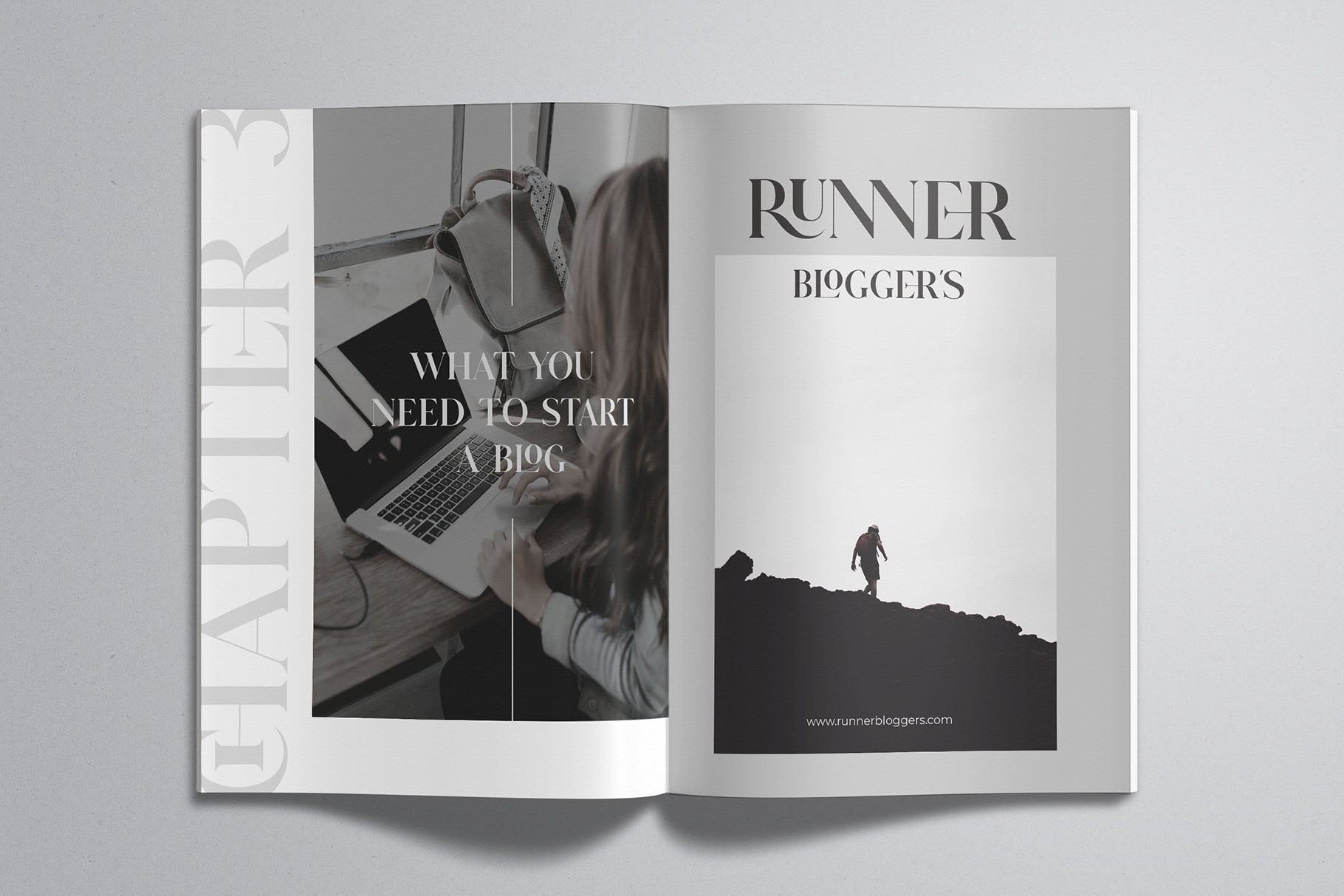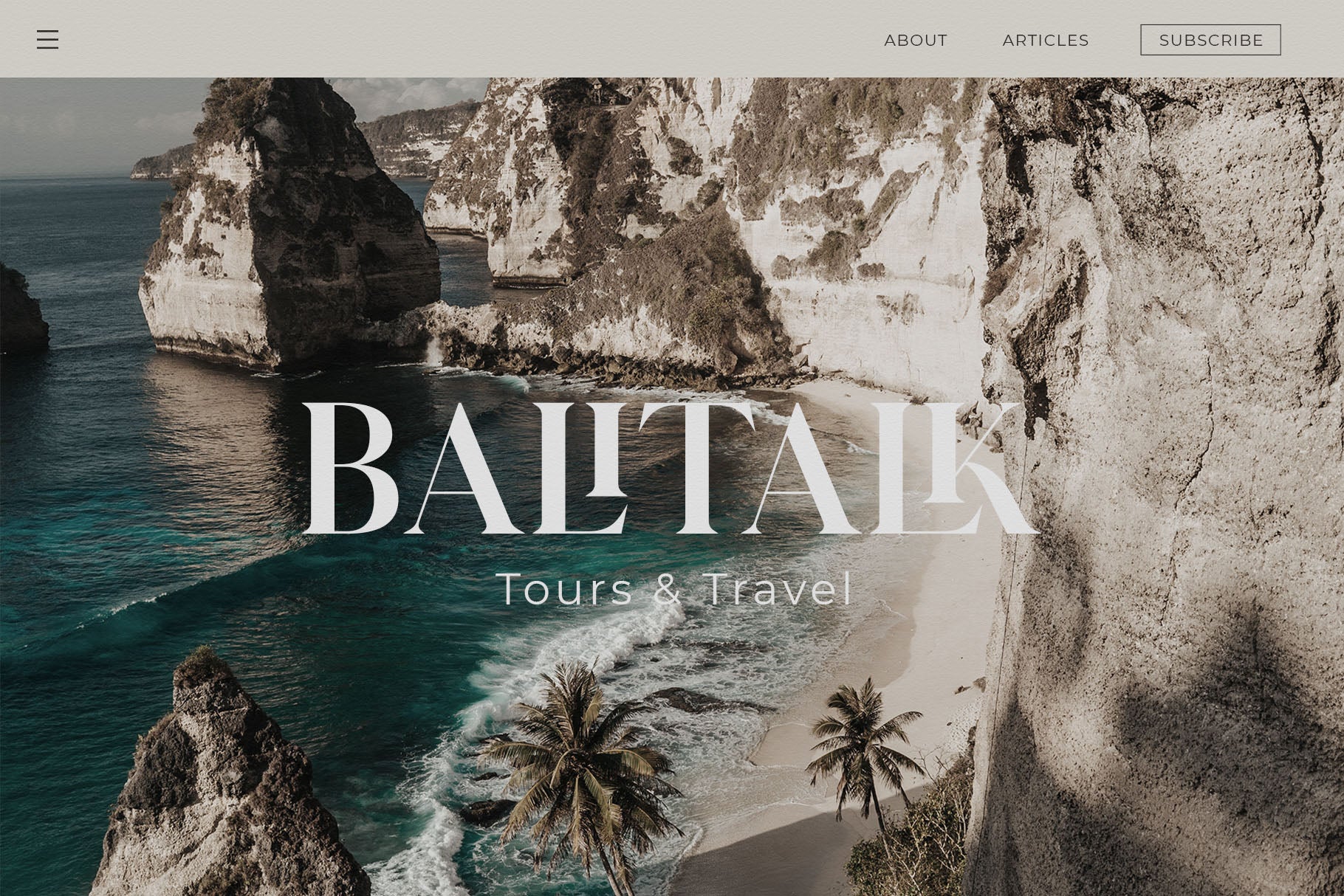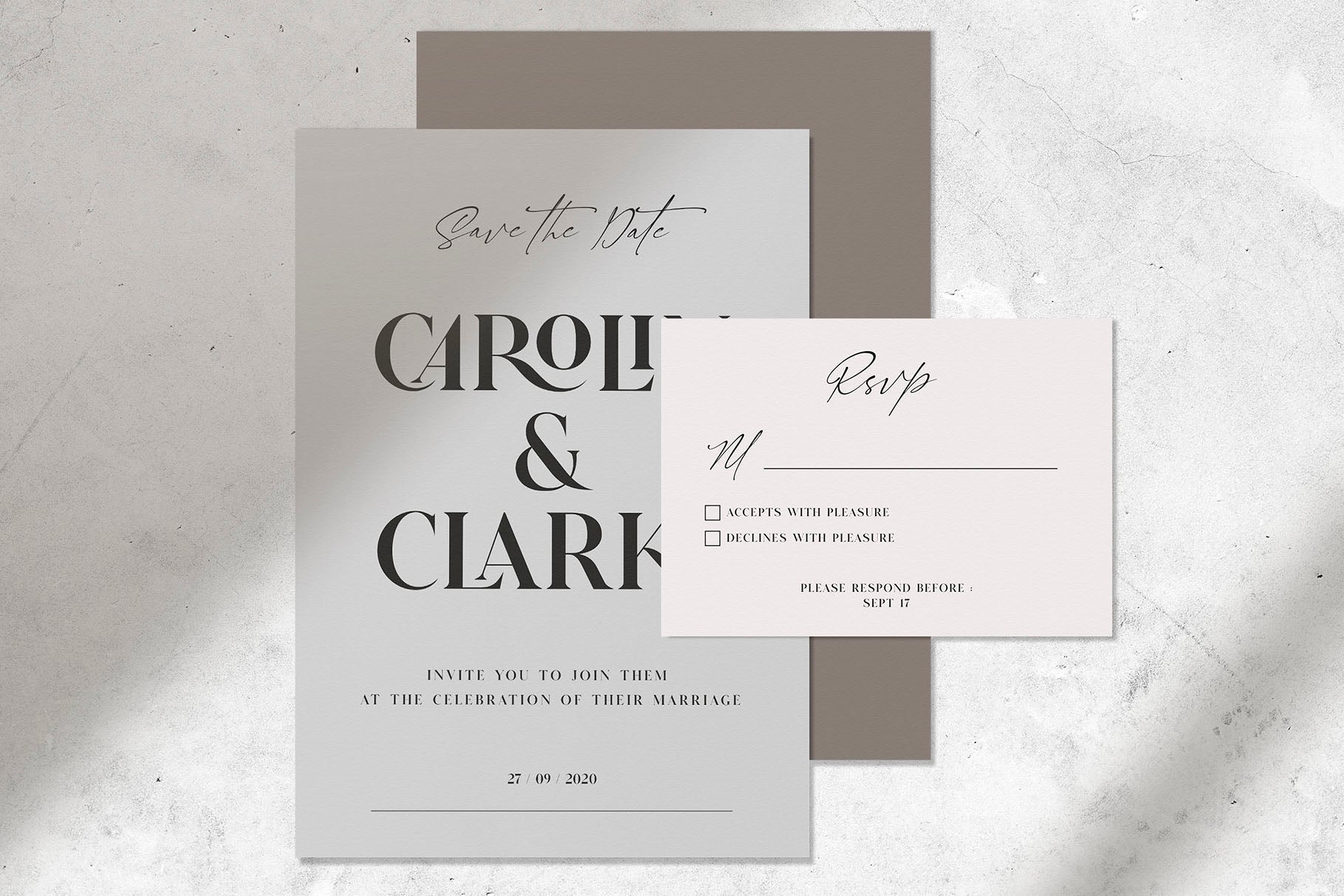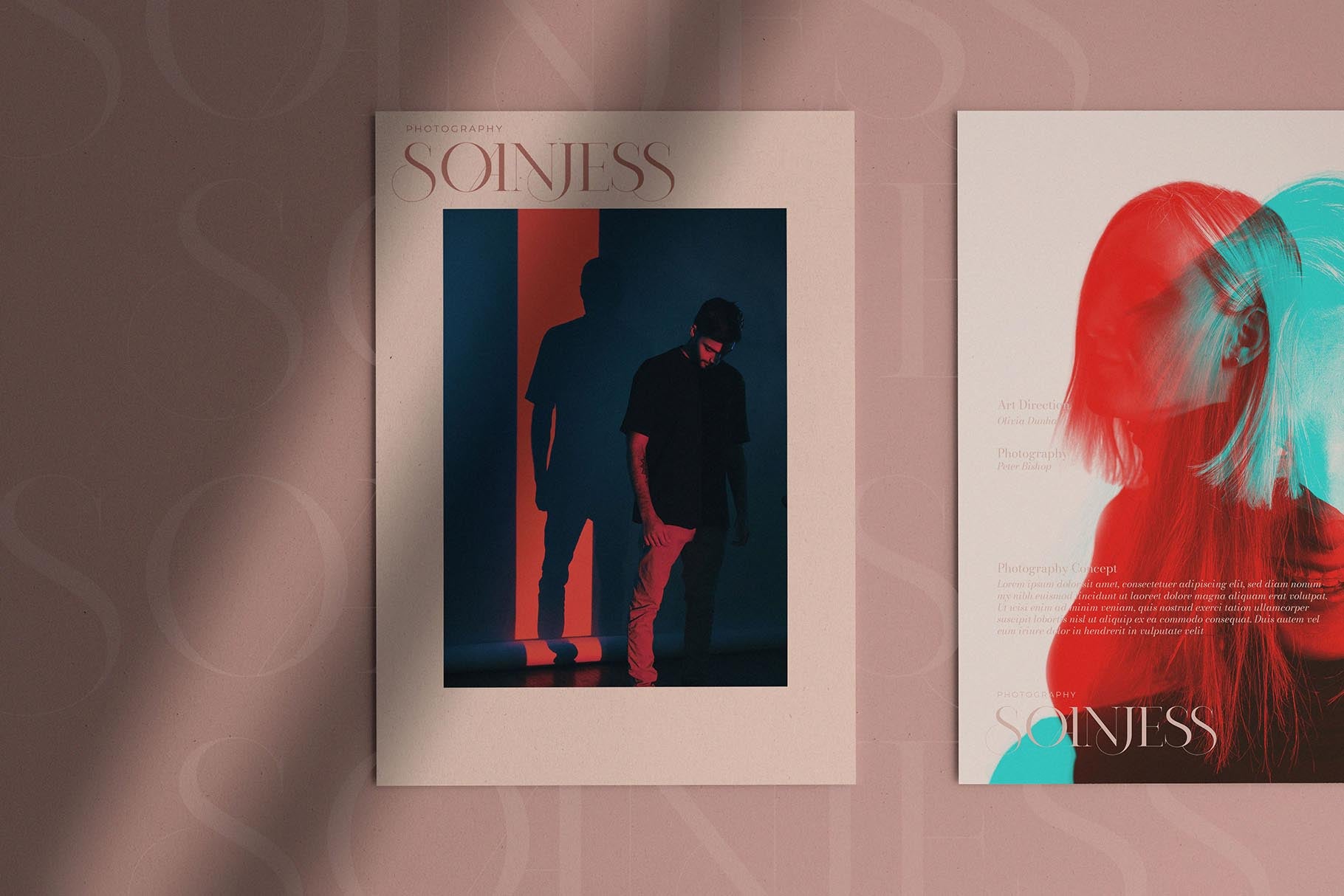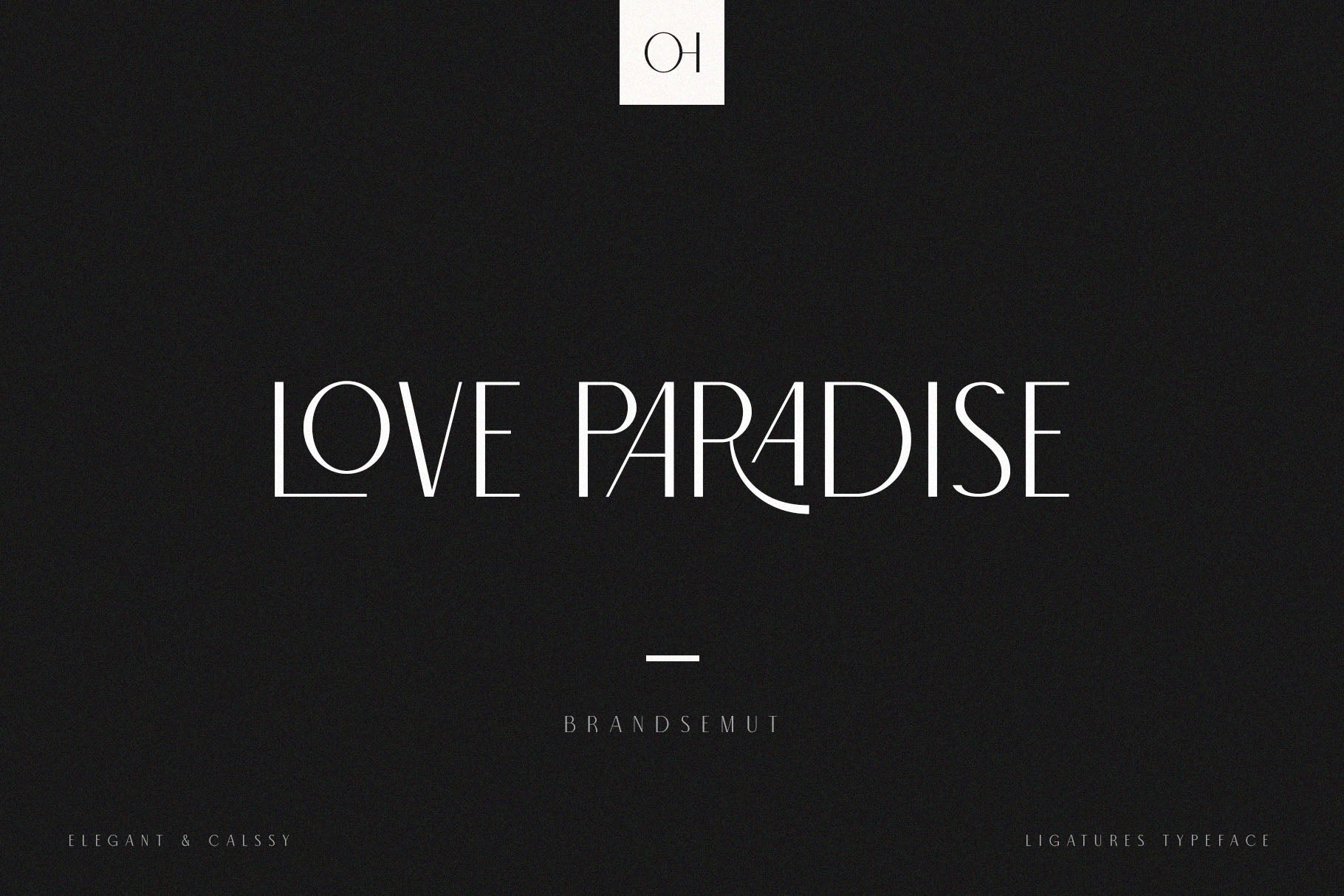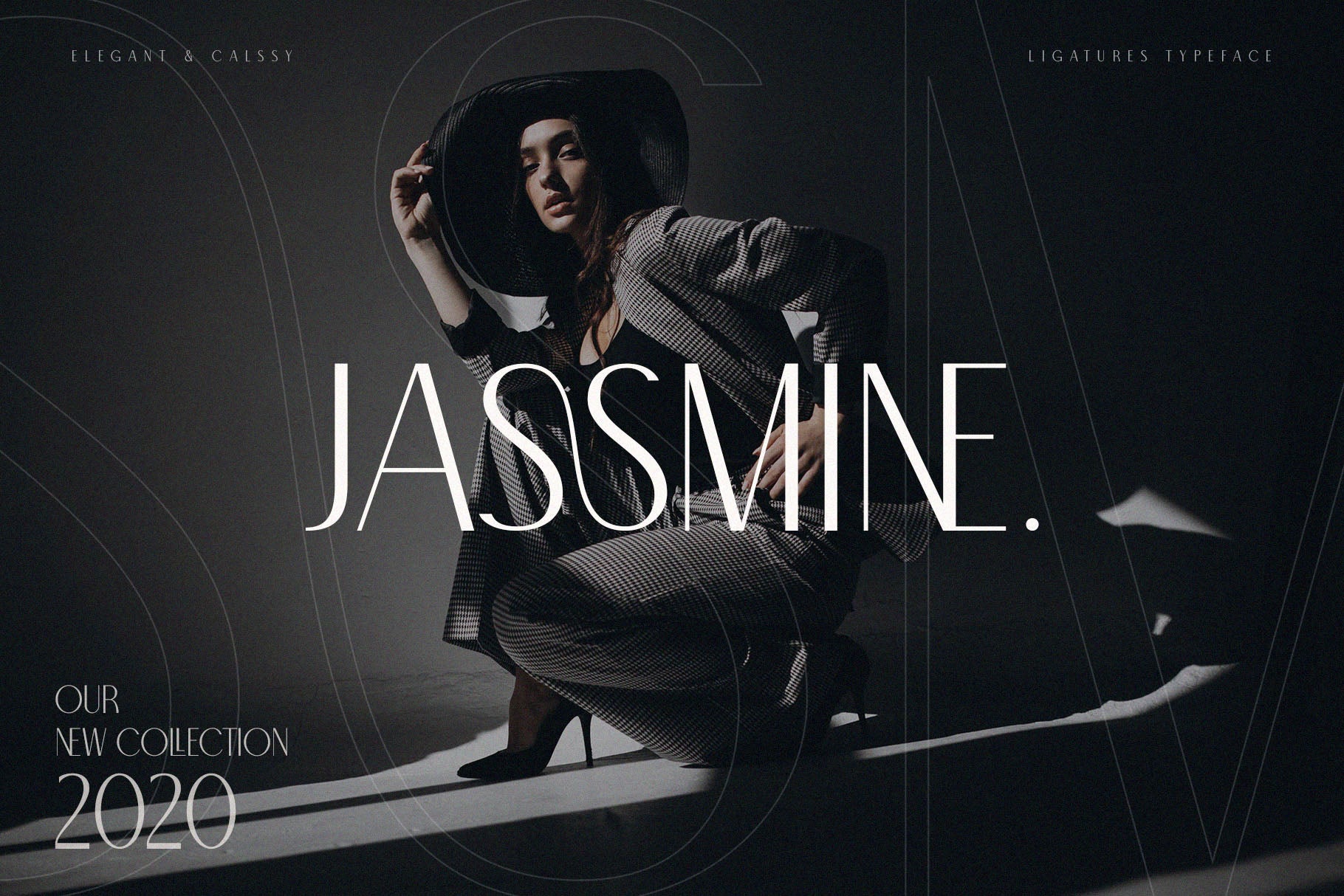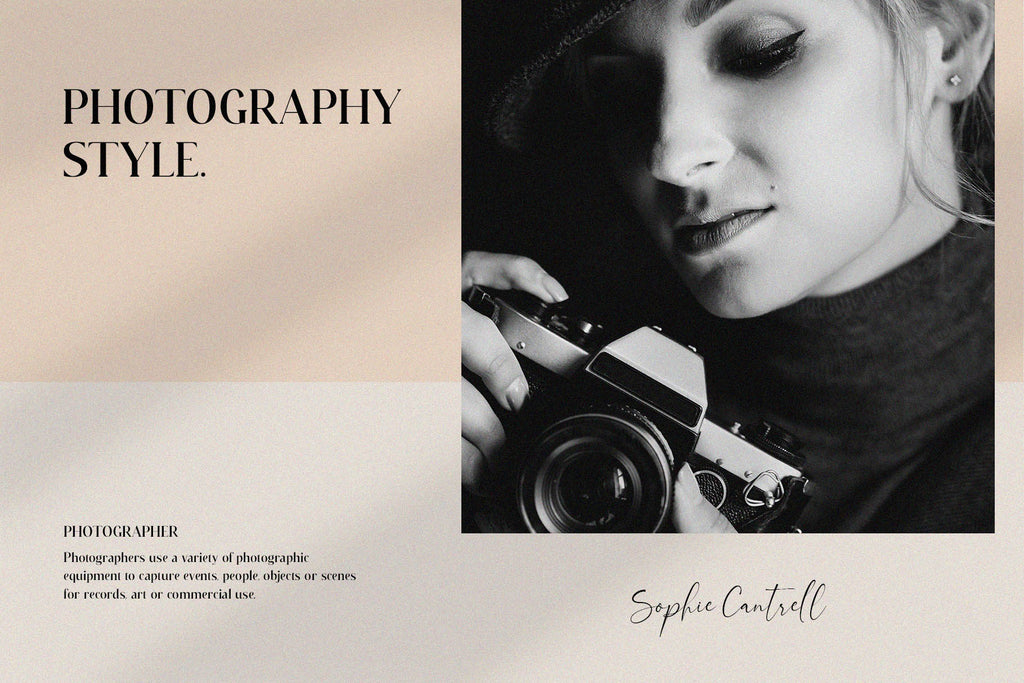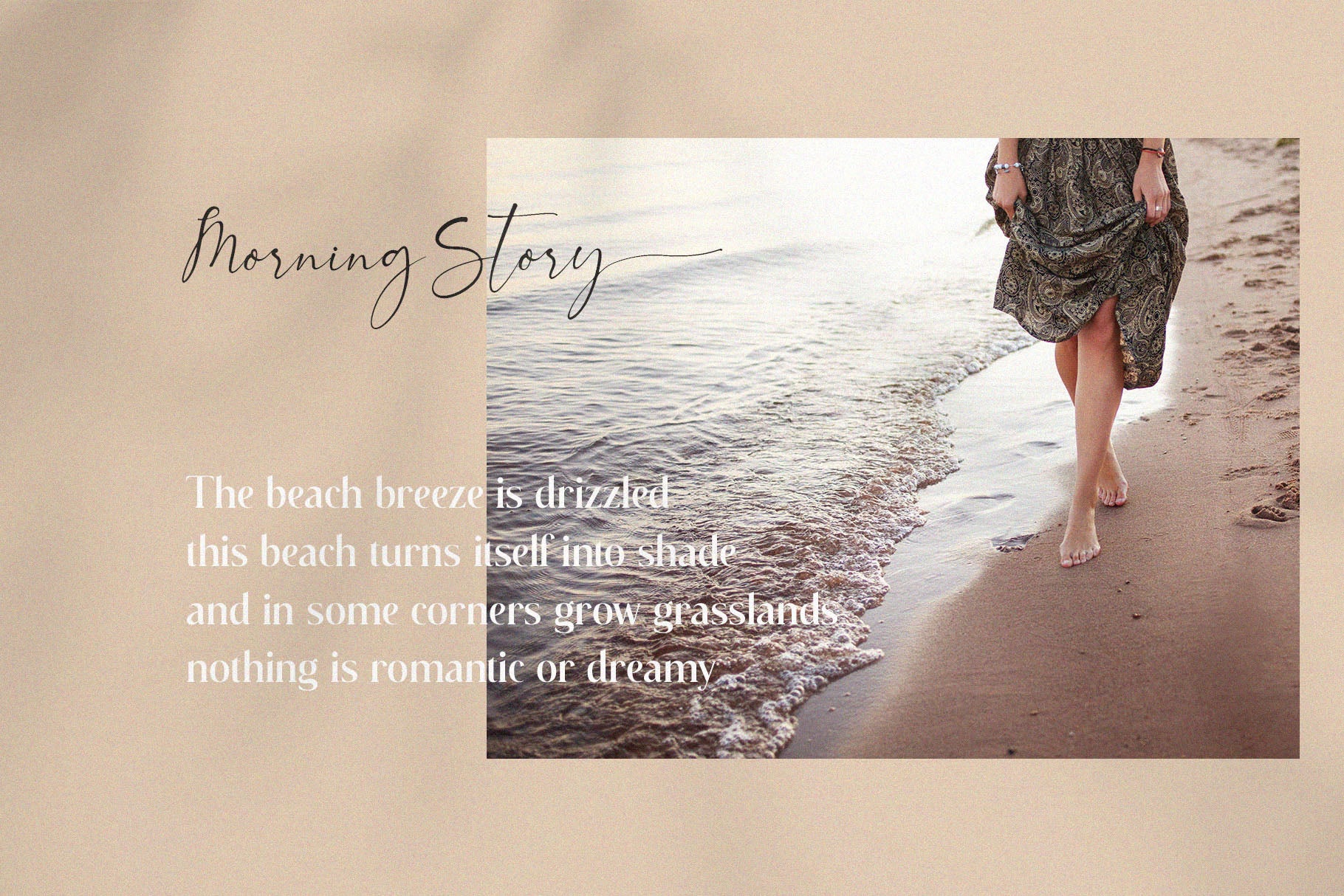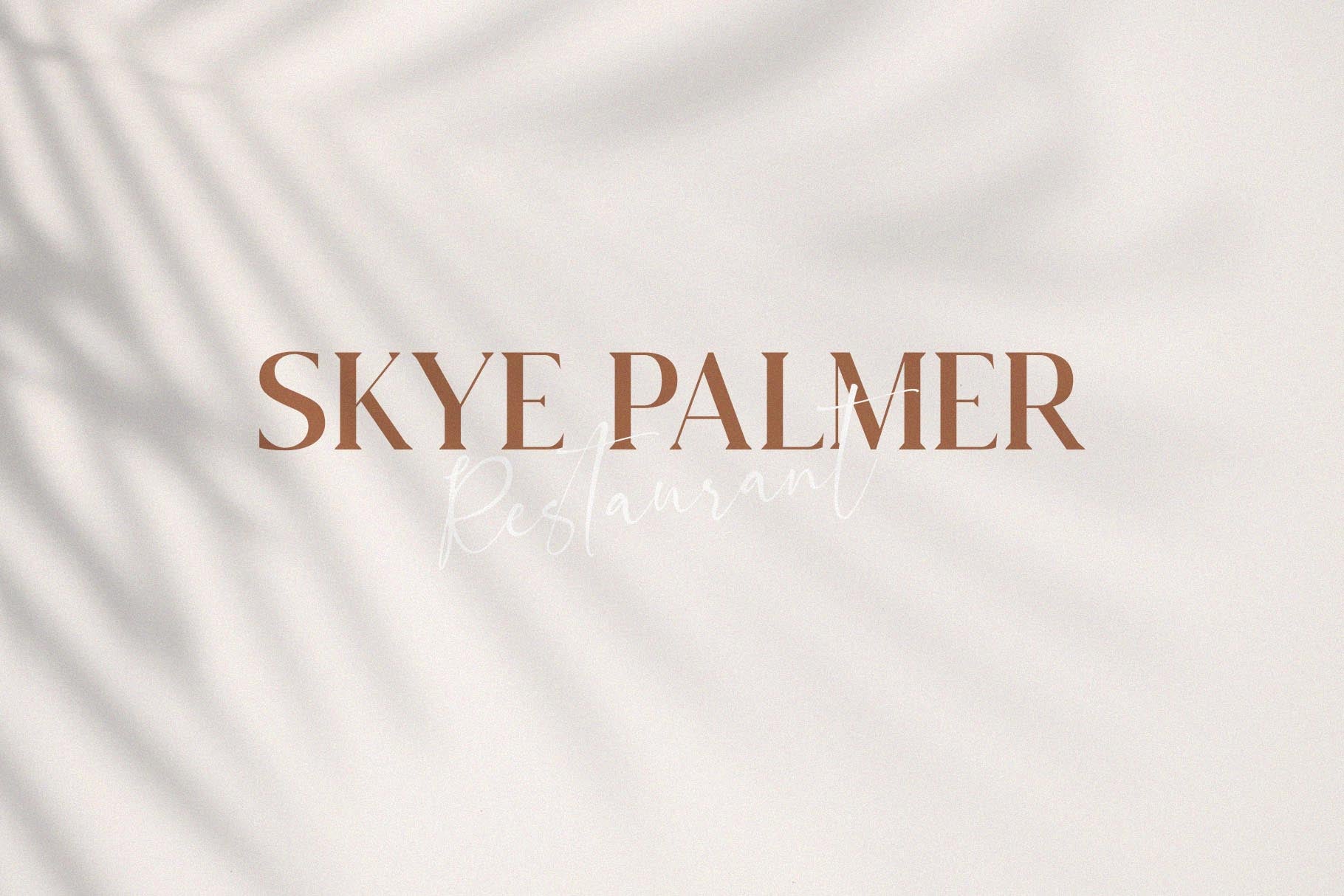
The Ligature Font Bundle Vol. 1
Introducing the new Ligature Font Bundle Vol. 1 from Brand Semut, an incredible BUNDLE with custom ligature features and more. The Ligature font bundle is suitable font for many creative projects & designs including everything from logos & branding projects to wedding stationery & editorial designs.
• Roseritta – Ligature Serif
• Morefren – Serif Ligature Font
• Glitten – Ligature Serif Font
• Glitten – All Caps Ligature Serif
• Nomark – Ligature Typeface
• North Carossela – A Ligature Sans
• Walkester Font Duo
• Rodetta Rossie Font Duo + Logos